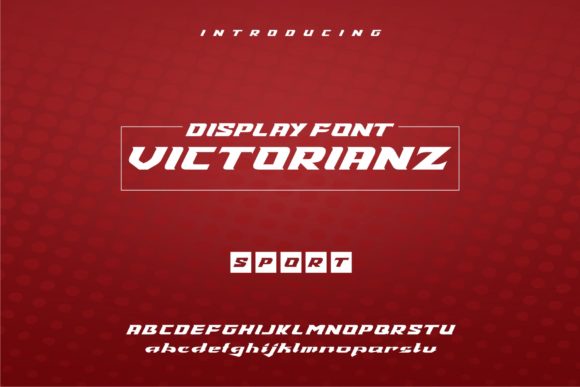
Introducing Victorianz Font: The Regal Display Font for Captivating Designs
Step into a world of elegance and sophistication with Victorianz Font, the epitome of display fonts. Crafted by the renowned Herulogo, this modern masterpiece exudes strength and sharpness, promising to elevate your designs to new heights.
Victorianz Font is more than just a collection of letters and symbols; it's an artistic expression that captures the essence of Victorian grandeur. Its bold curves and clean lines dance across the page, creating an impact that is both timeless and unforgettable.
Whether you're designing display posters, crafting logos, or creating eye-catching social media graphics, Victorianz Font is the perfect choice. Its versatility knows no bounds, allowing you to effortlessly convey your message with both style and impact.
But Victorianz Font is not just about aesthetics; it's also a font that speaks to the soul. Its strong and sharp characters evoke a sense of power and confidence, inspiring you to create designs that leave a lasting impression.
With Victorianz Font, you have the power to transform ordinary designs into extraordinary masterpieces. Its captivating style will draw the eye and leave your audience in awe. So, why settle for ordinary when you can create something truly exceptional?